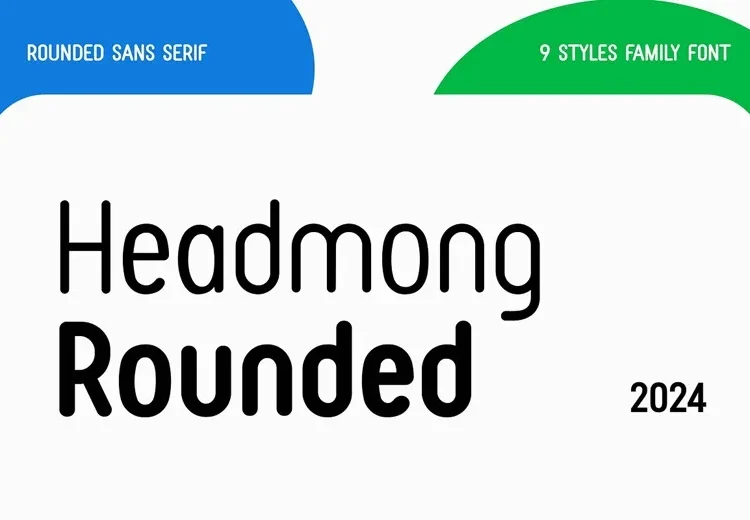
Headmong Rounded Font Family
Headmong Rounded Font is a sleek and contemporary sans serif typeface that offers a versatile design, making it an ideal choice for various projects. Whether you’re working on logos, wedding invitations, typography quotes, magazine or book covers, website headers, or branding, Headmong Rounded brings a modern, clean touch to your designs.
This font family also strikes a balance between masculine and feminine qualities, making it perfect for fashion branding or editorial design. Its rounded edges add a touch of warmth, ensuring it works well in both professional and creative contexts.
With a polished and balanced appearance, Headmong Rounded enhances the aesthetics of any design, offering flexibility for a wide range of applications. It’s suitable for designers looking to create modern and stylish visuals that stand out.